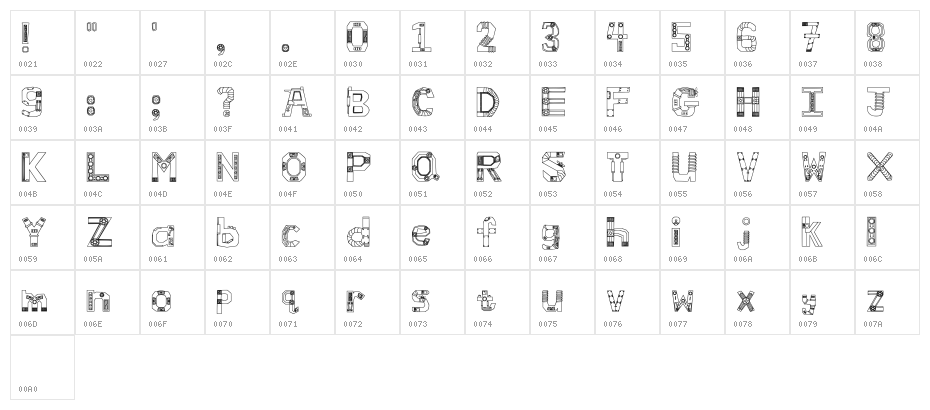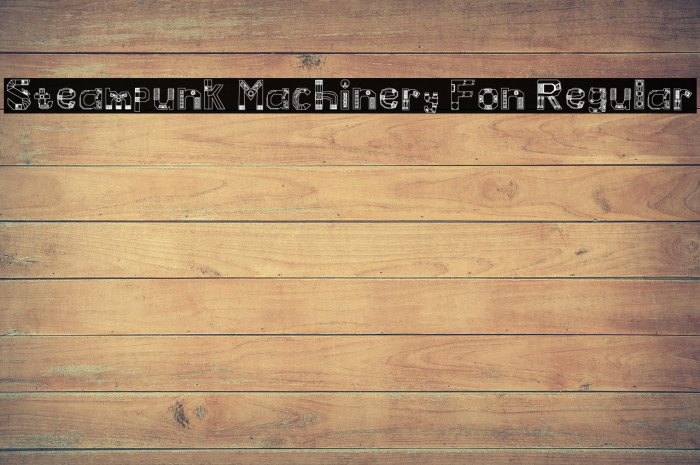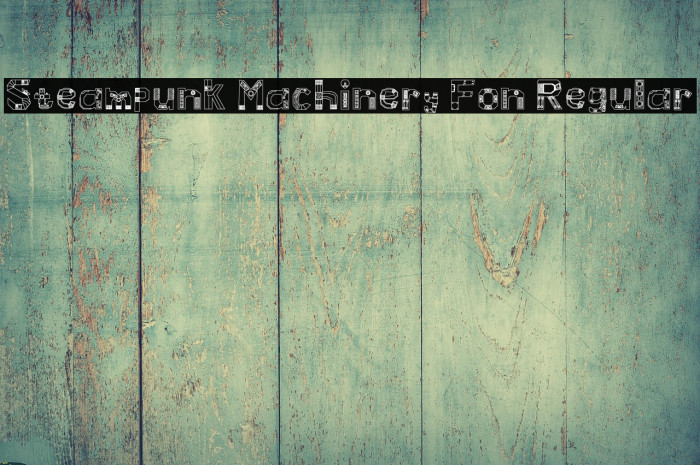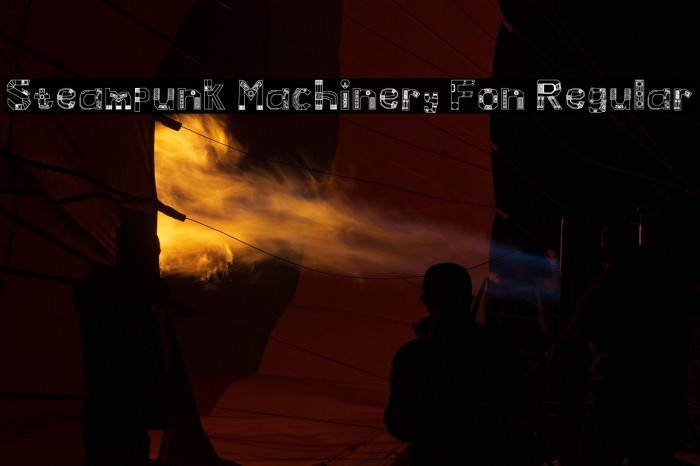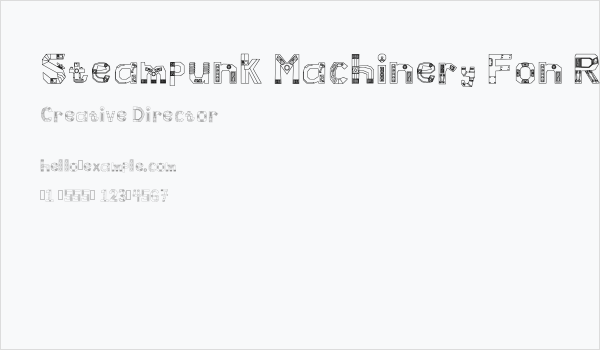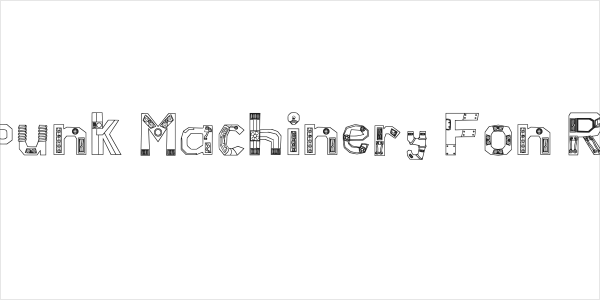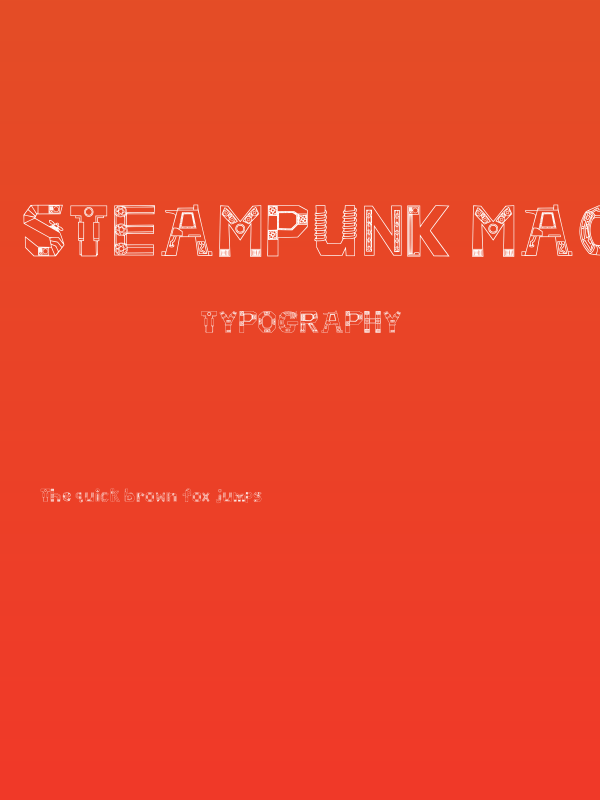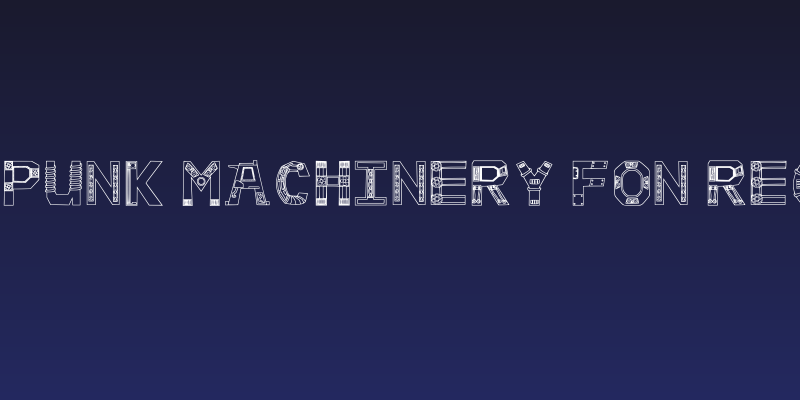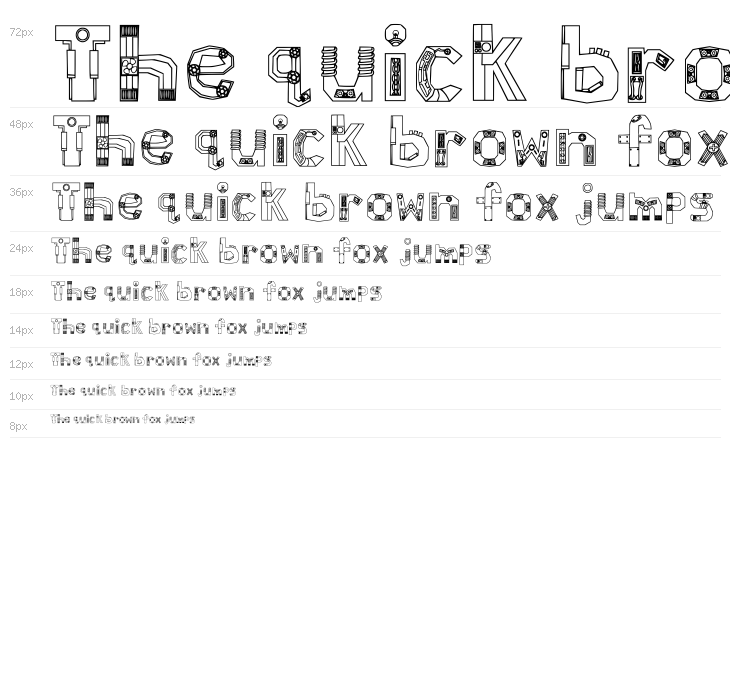
Steampunk Machinery Fon Regular Font
Steampunk Machinery Fon Regular Description
This font features a unique steampunk-inspired design, incorporating elements reminiscent of machinery and industrial components. Each character is intricately detailed with gears, pipes, and bolts, giving it a mechanical and vintage aesthetic. The uppercase and lowercase letters maintain a consistent theme, with each character appearing as if it is constructed from metal parts. Numbers and special characters follow the same design principles, ensuring a cohesive look across all glyphs. The font's detailed and decorative style makes it ideal for projects that require a distinctive and thematic appearance.
| Overall Style | Vintage, Decorative |
| Proposed Projects | Ideal for steampunk-themed posters, book covers, event invitations, and branding materials that require a vintage industrial look. |